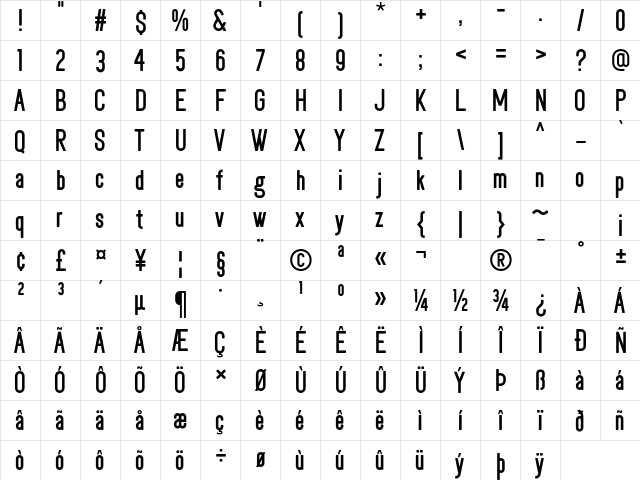
Shakerato-PERSONAL Regular
| Foundry | Vilova |
| Designer | Fikri F Hasan |
Design Context for Shakerato-PERSONAL Typeface
Shakerato-PERSONAL offers clean, dependable letterforms without strong stylistic allegiance, making it a practical choice for designers who need flexibility.